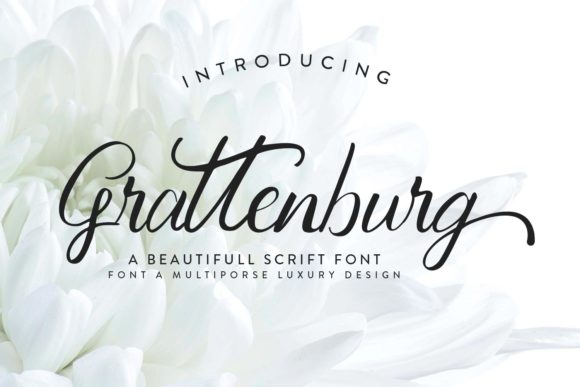
Step into the realm of artistry with Grattenburg Font, a script masterpiece that dances across your screen with unparalleled grace. This flowing handwritten font embodies elegance in its every stroke, ready to transform your designs into breathtaking works of art.
Indulge in its incredibly distinct style, a timeless treasure that transcends the boundaries of ordinary fonts. With Grattenburg, your creations will radiate an air of sophistication and charm, captivating the hearts of all who behold them.
Unleash your creativity and dive into a world of endless possibilities. Whether you're crafting captivating social media posts, designing elegant invitations, or adorning your website with a touch of class, Grattenburg has got you covered.
Its versatility knows no bounds, allowing you to experiment with a myriad of styles and themes. From vintage-inspired designs to modern masterpieces, Grattenburg effortlessly adapts, adding a touch of magic to every project it graces.
Immerse yourself in the beauty of Grattenburg and watch your designs blossom into works of art. Prepare to be mesmerized by its enchanting strokes and captivating presence. Download Grattenburg Font today and unlock a world of creative possibilities!